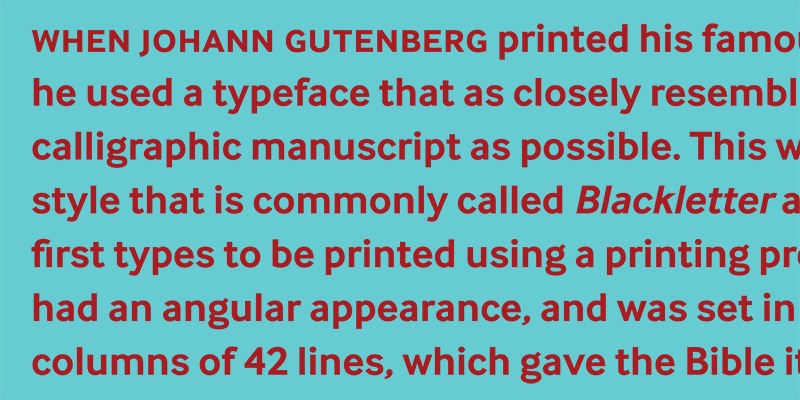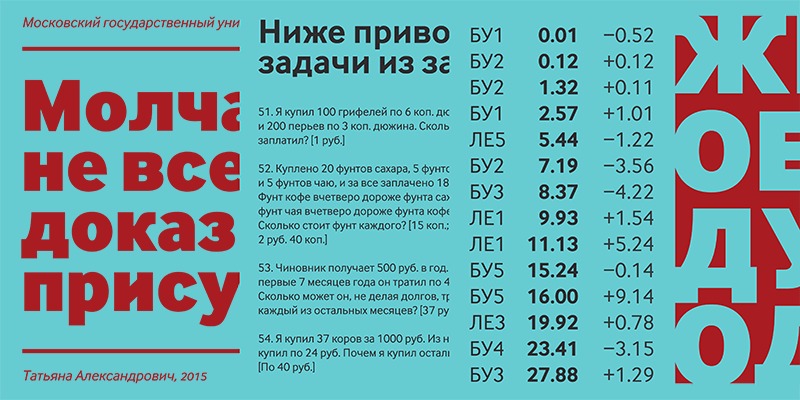
InterFace Font Family
InterFace Sans Serif Font
This font is a contemporary, neutral, all-purpose sans-serif. InterFace takes inspiration from sans serif fonts of the 19th Century, to which it subtly blends in humanist details. This gives the design a softer look than a pure Grotesque would achieve and adds to its individuality.
With an x-height that is fractionally raised above the norm, InterFace is a slightly narrowed design. This makes life easier for anyone who needs to set text in places where space is tight, and equally importantly, helps text at small point sizes to still be clearly legible. It’s a font family that has been designed for the modern, online world and is flawlessly precise in its execution.